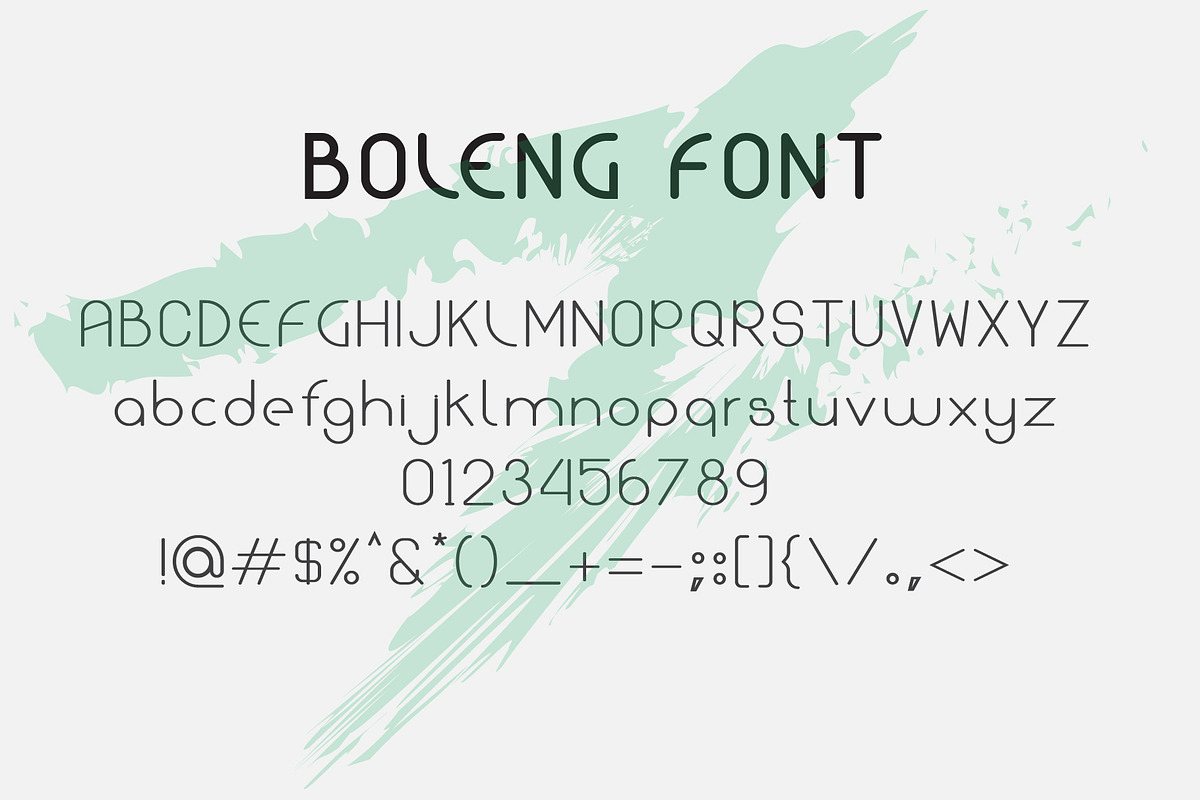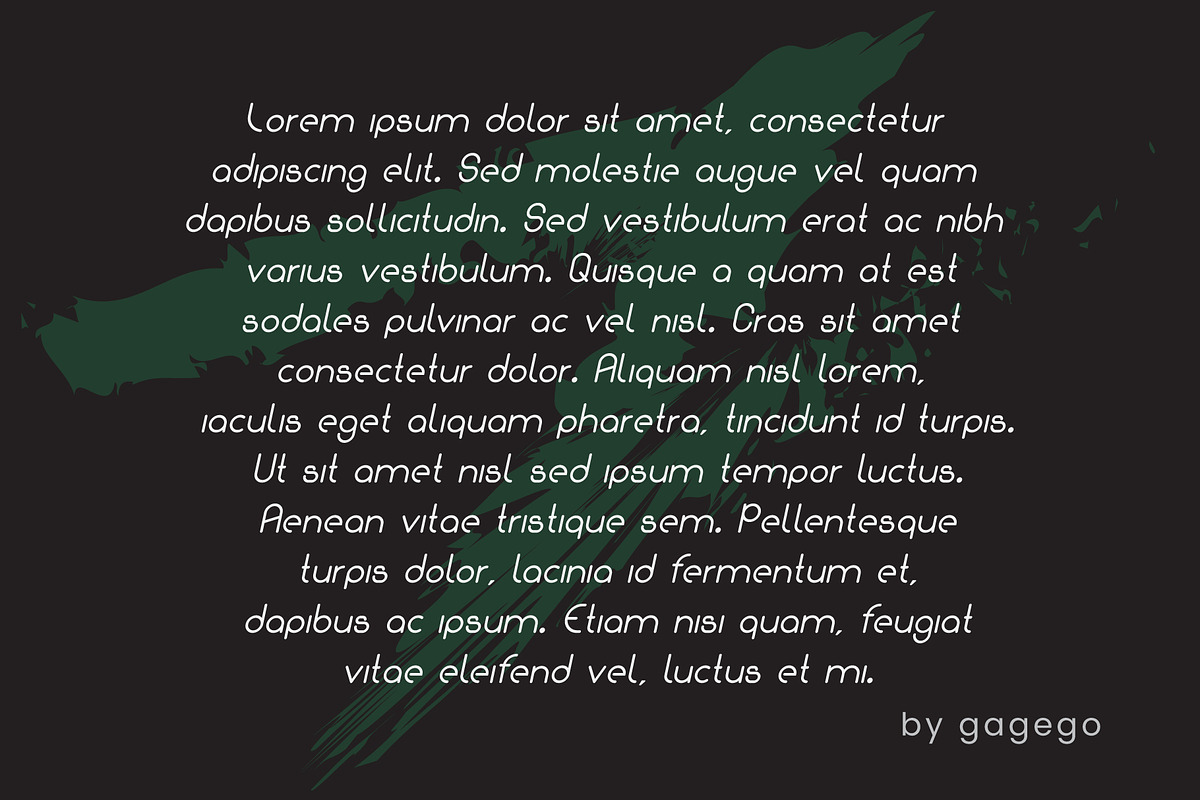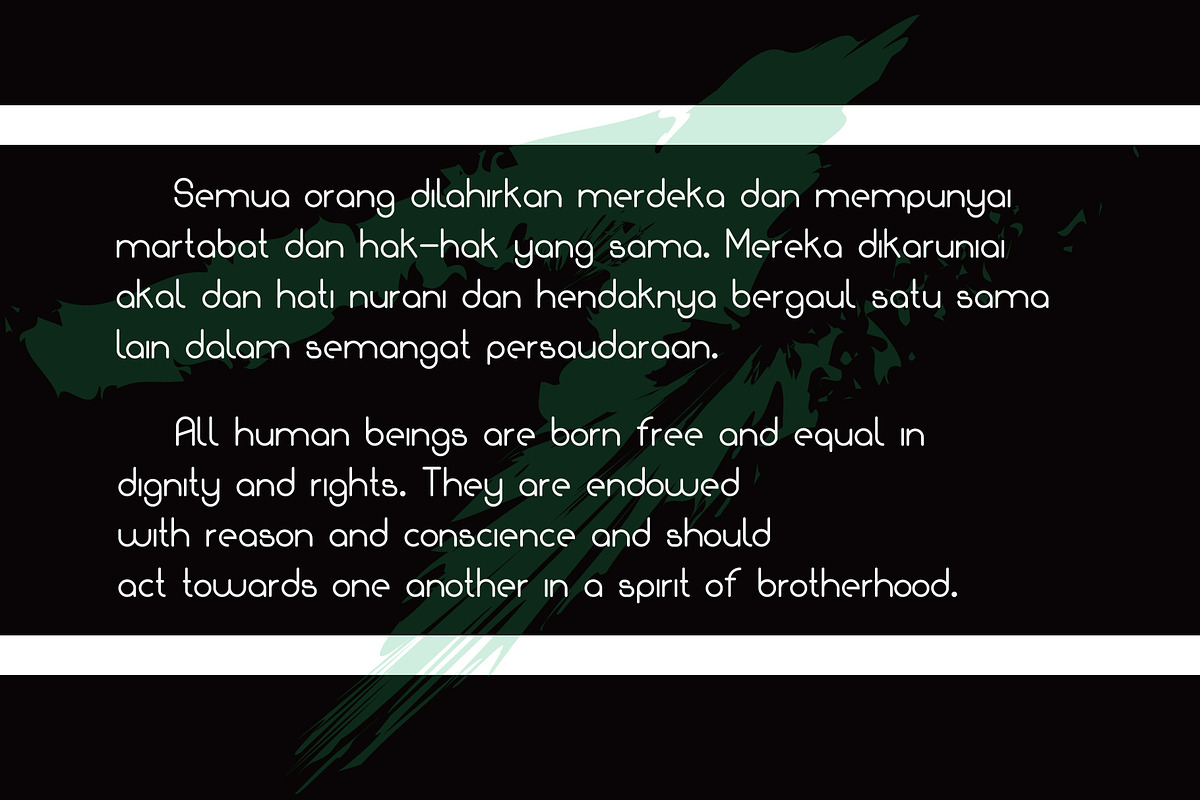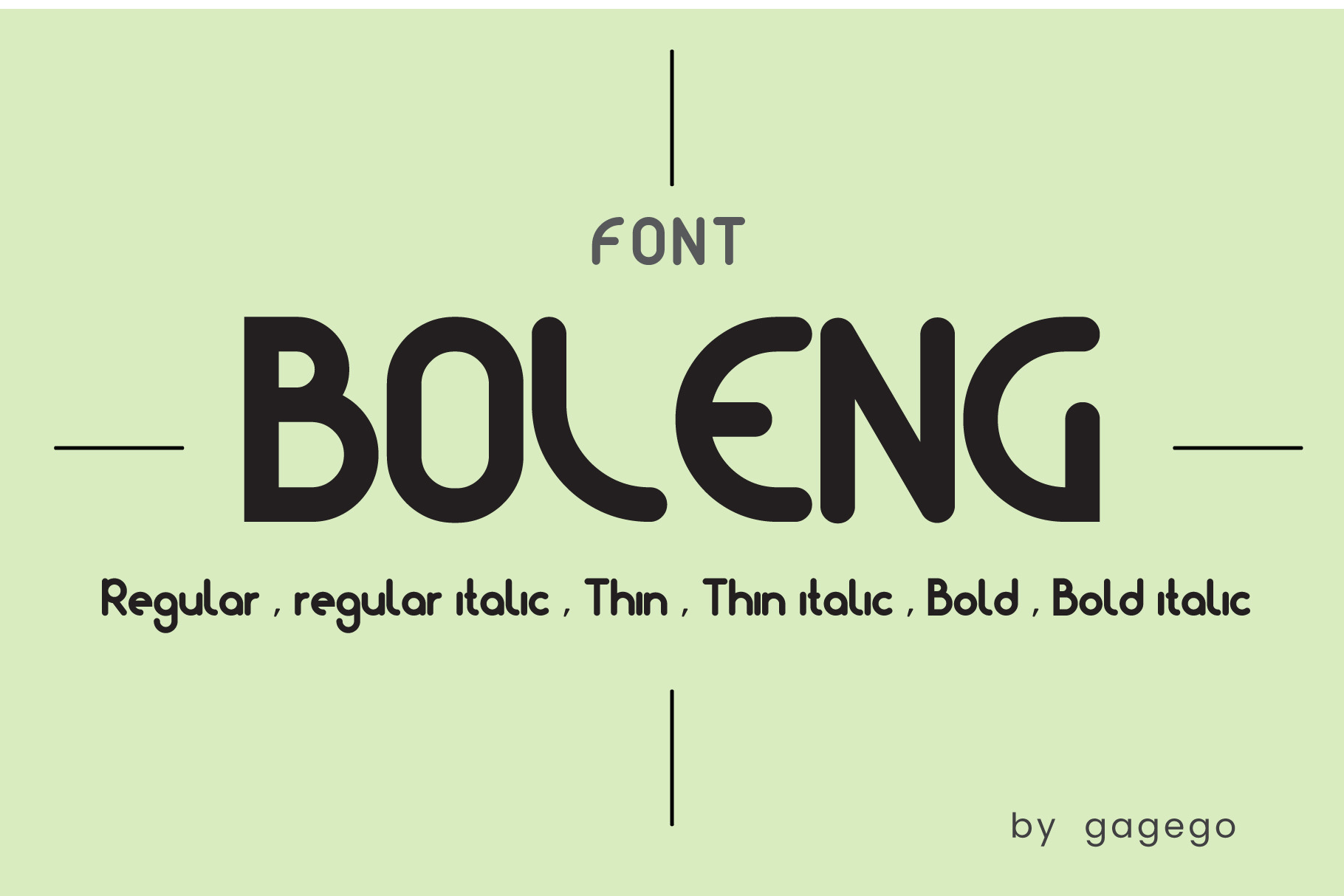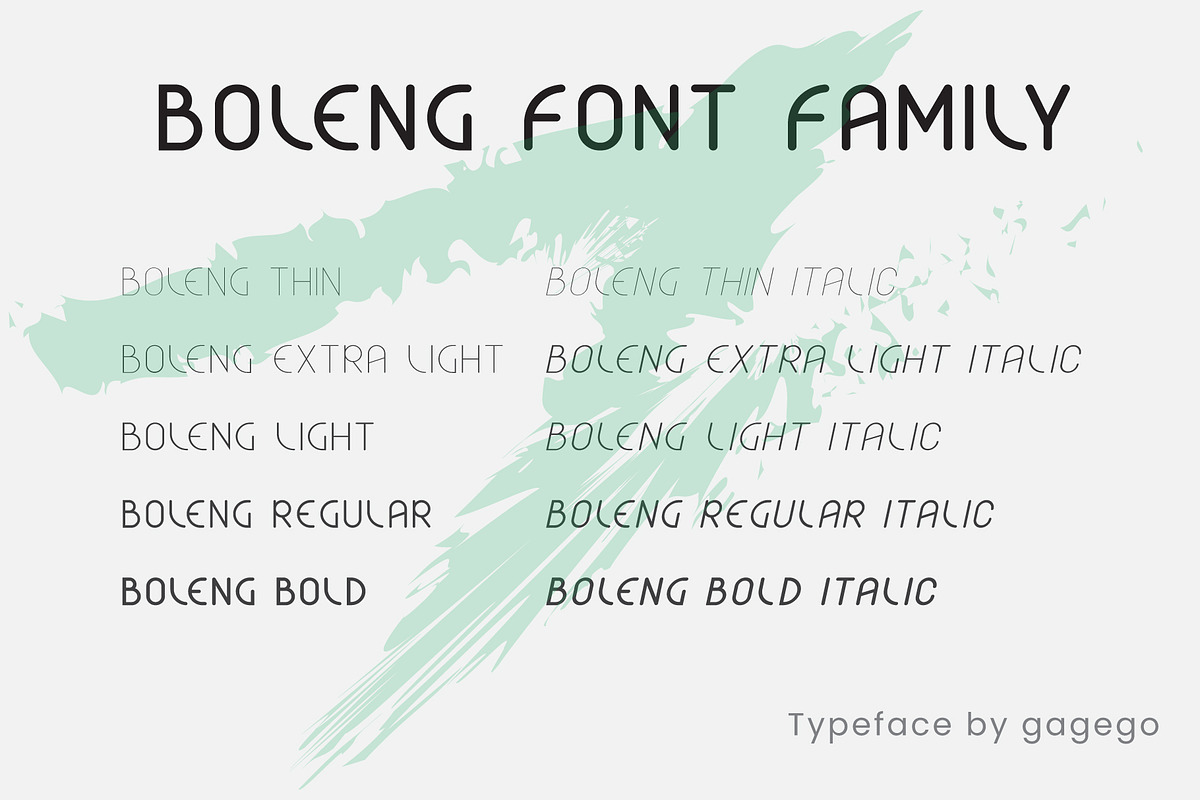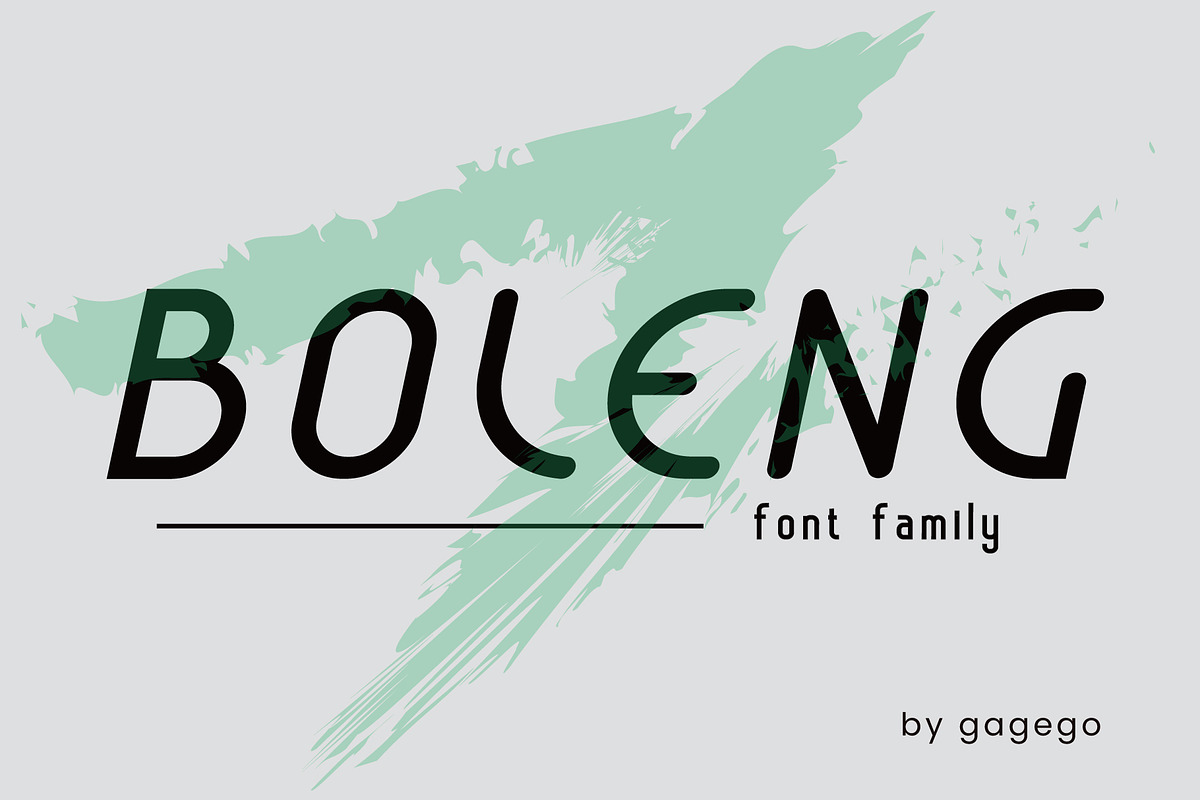
BOLENG FONT SANS SERIF
We provide a unique but interesting font, the name of the font is BOLENG FONT. This font is suitable for making books or banners and whatever, because this font looks relaxed, happy, happy, and unique. BOLENG FONT is available in several font types
1 regular 2 regular italic 3 thin 4 thin italic 5 bold 6 bold italic 7 extra light 8 extra light italic 9 light 10 light italic